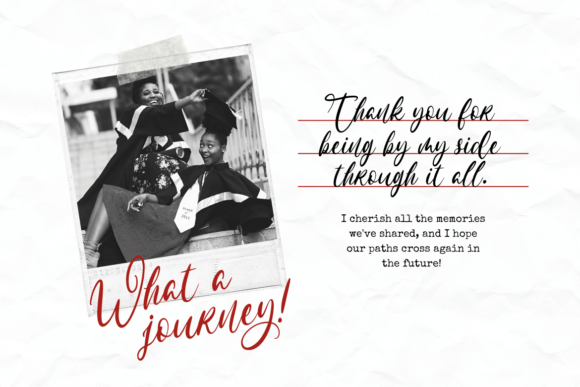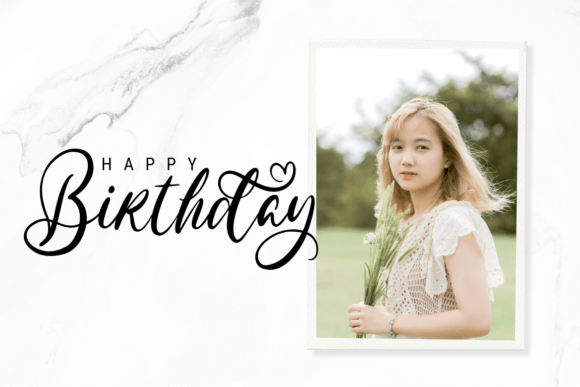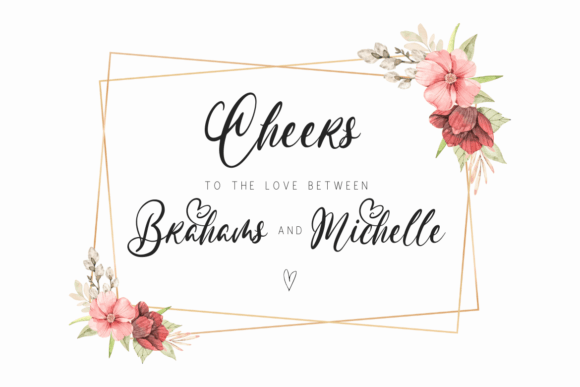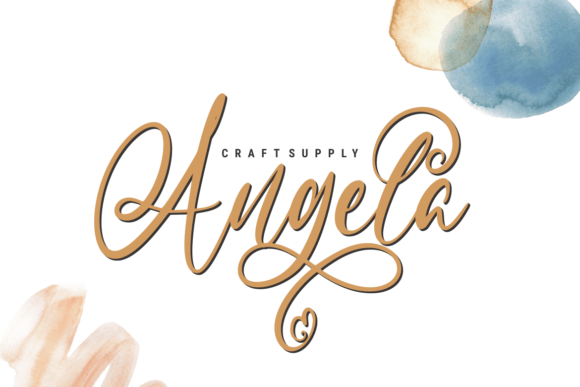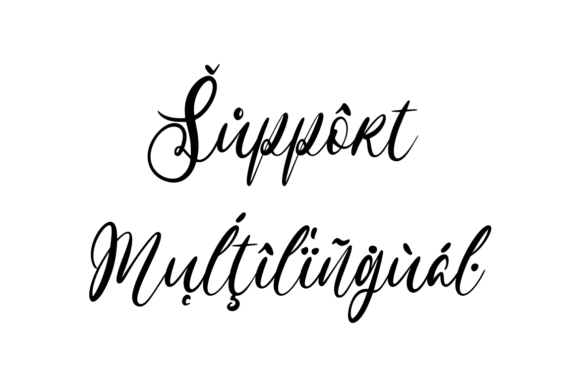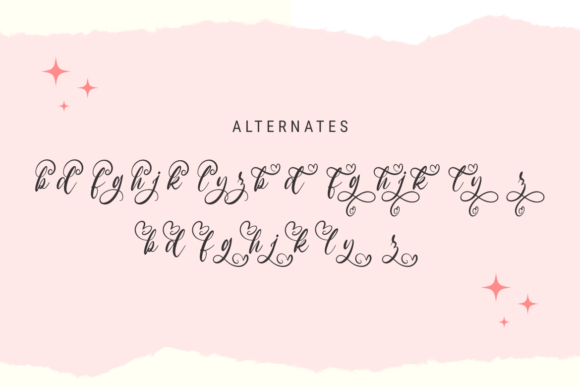
Introduction to Daily Bayland Font Font
Fonts play a crucial role in design, and the Daily Bayland Font font is a typeface that brings both character and versatility to any project. Whether you’re working on a branding project, a website, or a print design, the Daily Bayland Font font offers a unique style that can elevate your work.
Daily Bayland is a delicate, elegant, and stylish handwritten font.
This versatile script font has a wide spectrum of applications ranging from greeting cards to headlines and is guaranteed to add a romantic feel to your next project This font is PUA encoded which means you can access all of the glyphs and swashes with ease.
Key Features of Daily Bayland Font Font
Why Choose Daily Bayland Font Font?
The Daily Bayland Font font is more than just a typeface – it’s a design tool that helps you communicate your message with style and clarity. Its unique character set and versatile design make it suitable for a wide range of applications, from elegant invitations to bold headlines.
With its carefully crafted letterforms and balanced proportions, the Daily Bayland Font font ensures readability and visual appeal across all mediums.
What makes Daily Bayland Font font special?
The Daily Bayland Font font stands out with its unique design, exceptional readability, and versatility across various design applications.